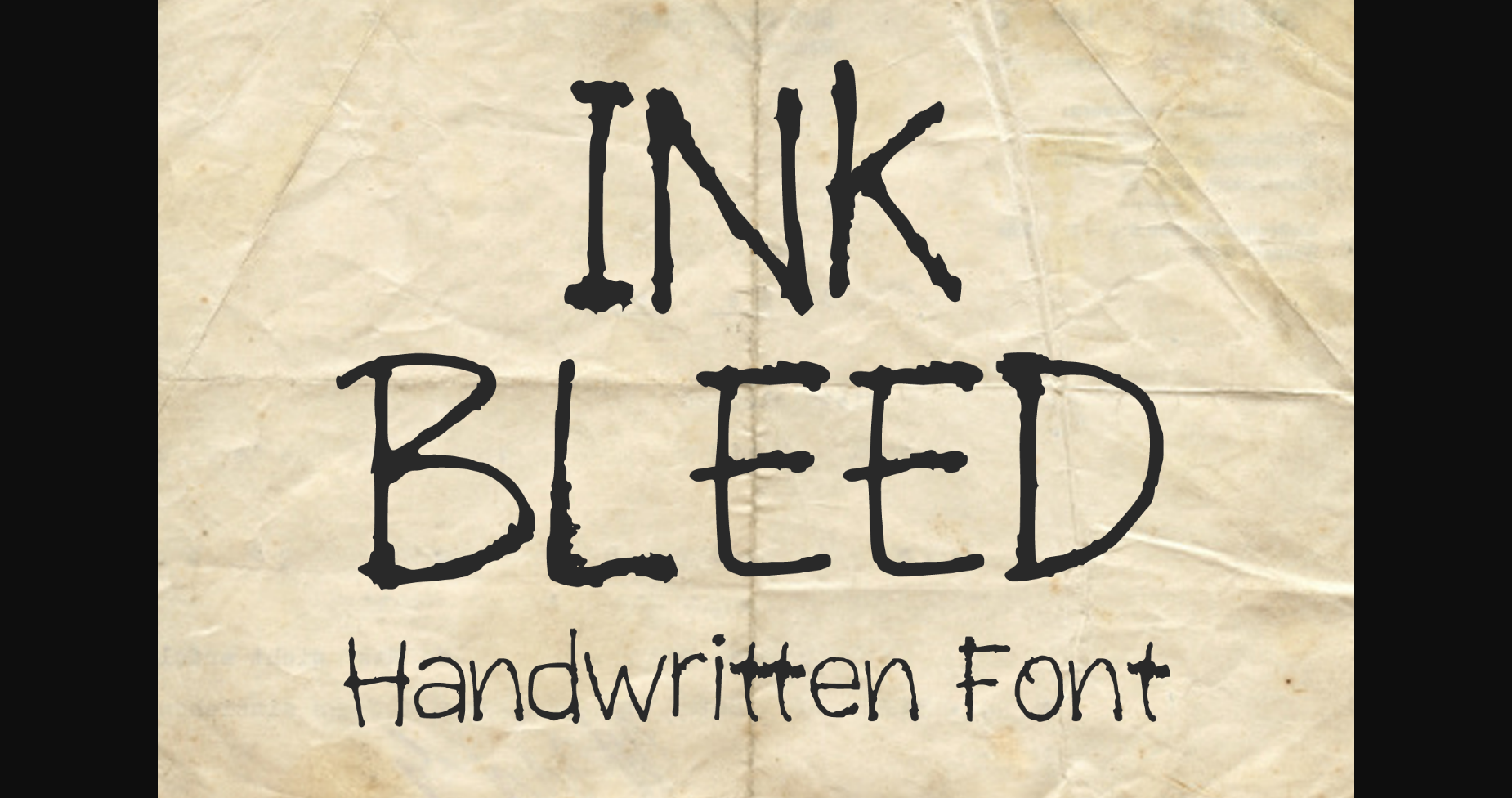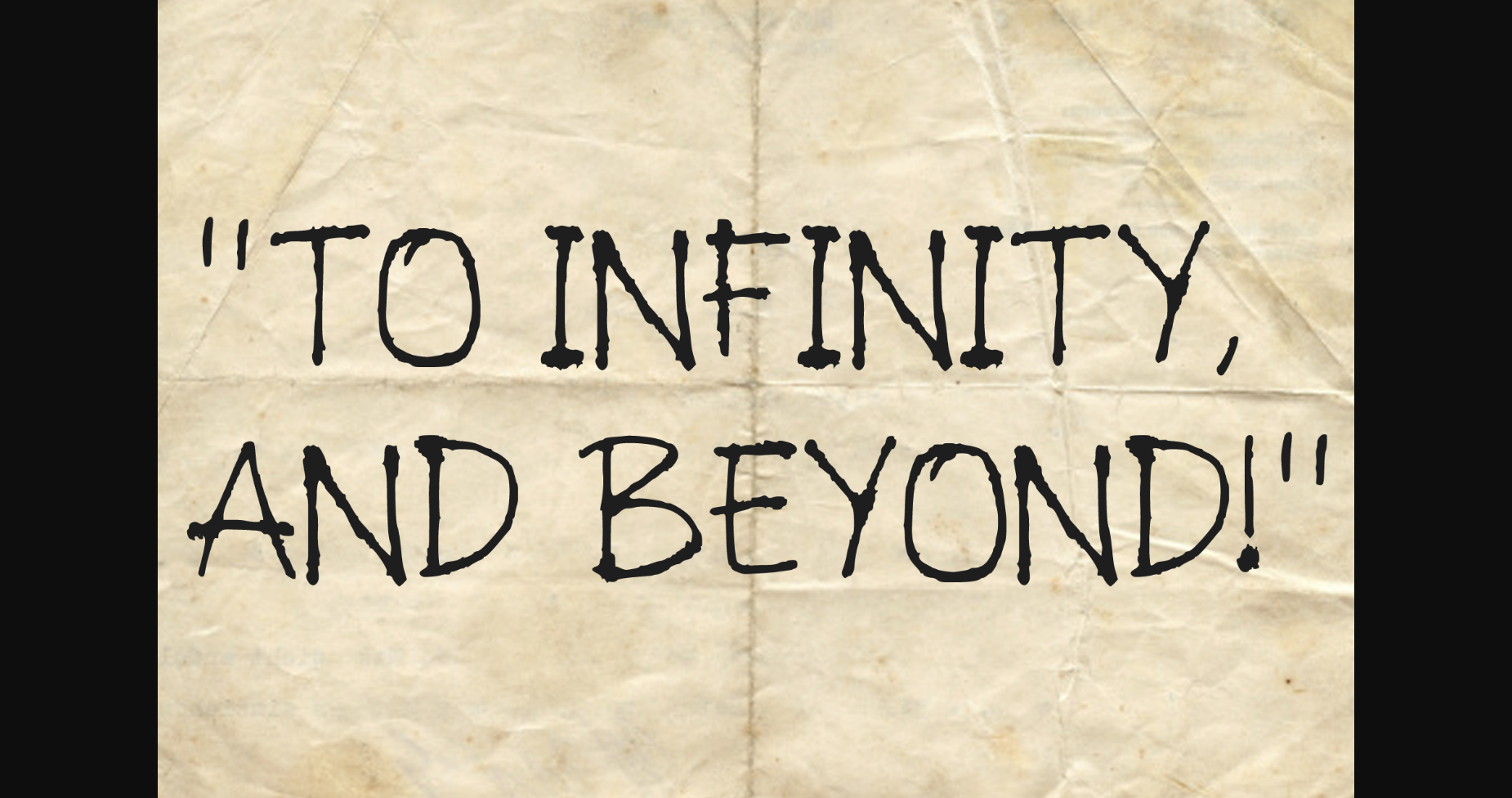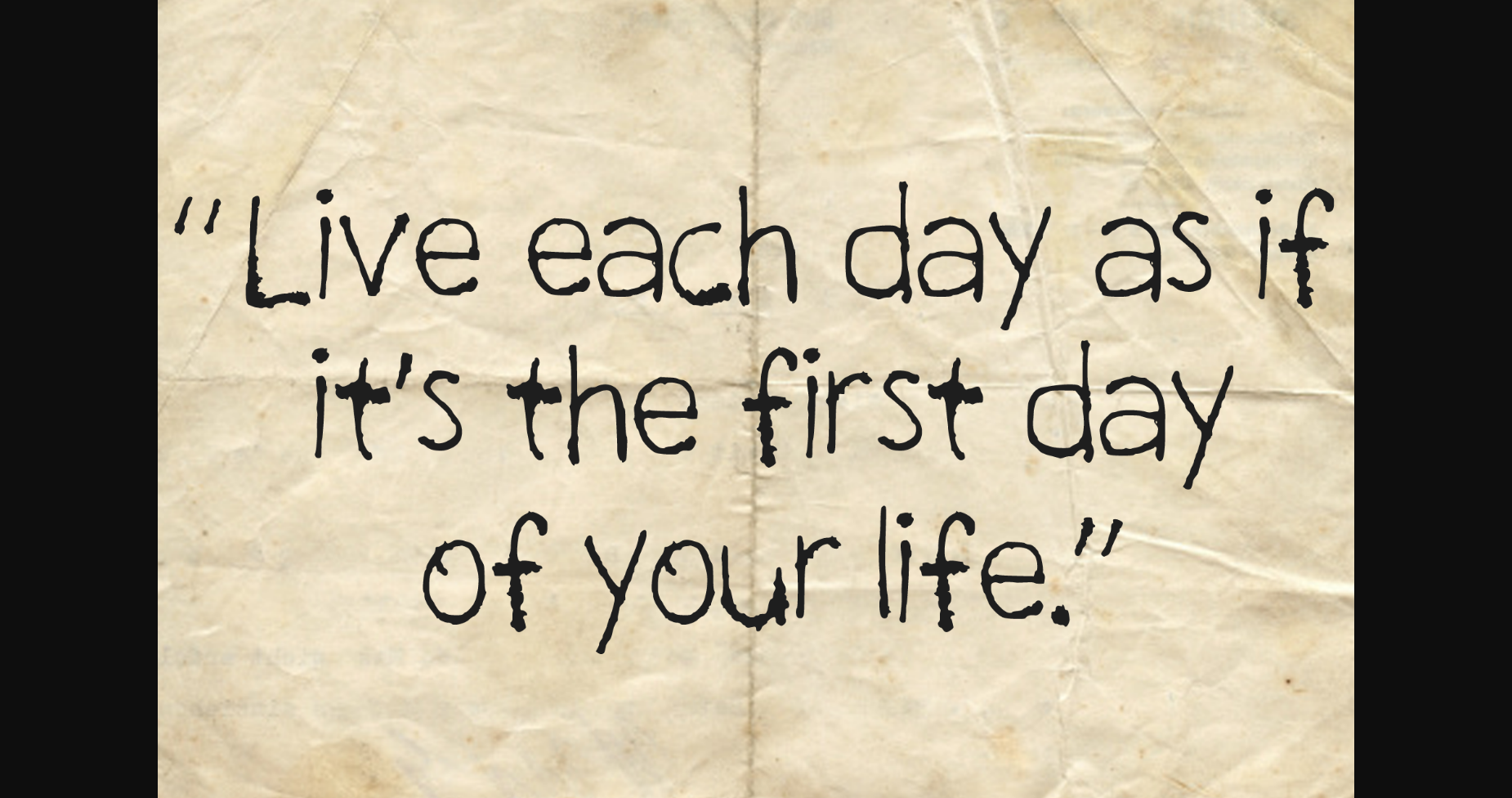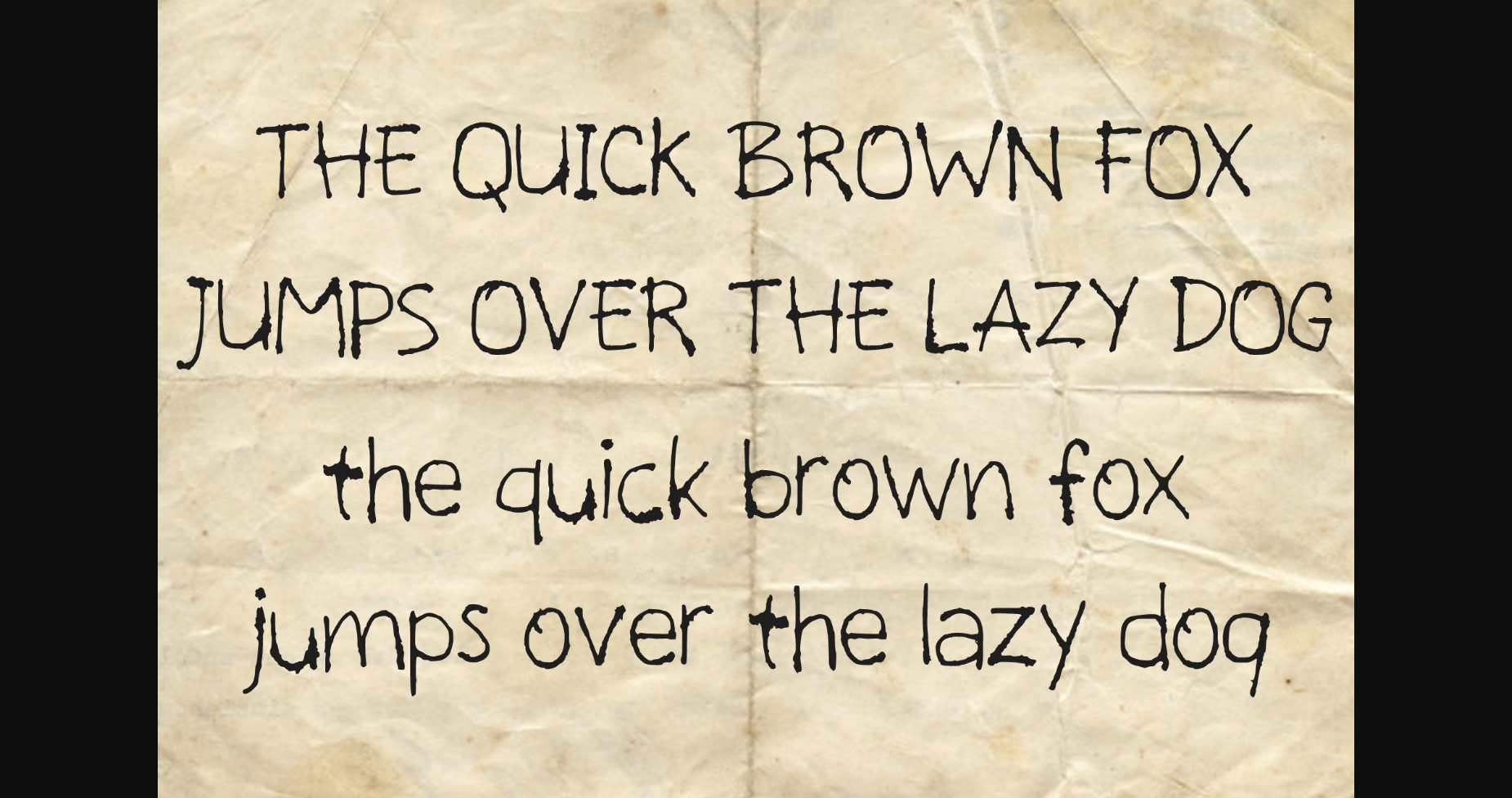
Ink Bleed Font
About Ink Bleed Font
Ink Bleed is a cool ink-made handwritten font! You can use it for anything ranging from t-shirts, for your detective play or mystery theme needs, Halloween party needs, greeting cards, stickers, posters, kid’s book design or anything that needs a casual touch. Try it to create fabulous designs and feel the good vibes with it!